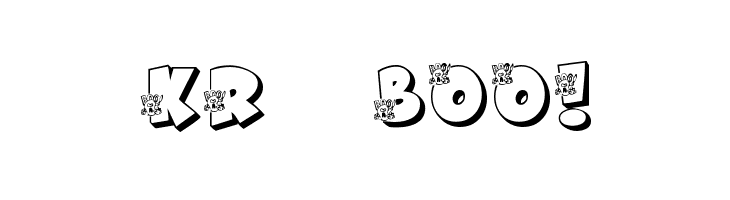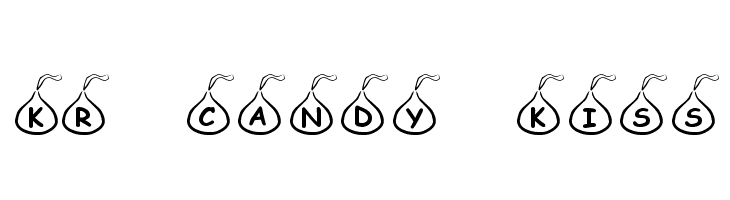
A bold, hand-drawn font with a playful and energetic style.
A festive icon set font with birthday and celebration motifs.
A playful, candy-like font with dotted outlines and rounded characters.
A playful, bold, and cartoonish font with a hand-drawn, shadowed style.
A bold, playful font with moon-themed decorative elements and a modern style.
A bold, playful font with cartoonish outlines and whimsical patterns.
A decorative font with letters inside birthday cakes, ideal for festive designs.
A bold, movie-themed font with clapperboard elements for each character.
A playful font with letters inside candy kiss shapes, perfect for fun projects.
A playful, lime-themed decorative font with bold, capitalized letters.